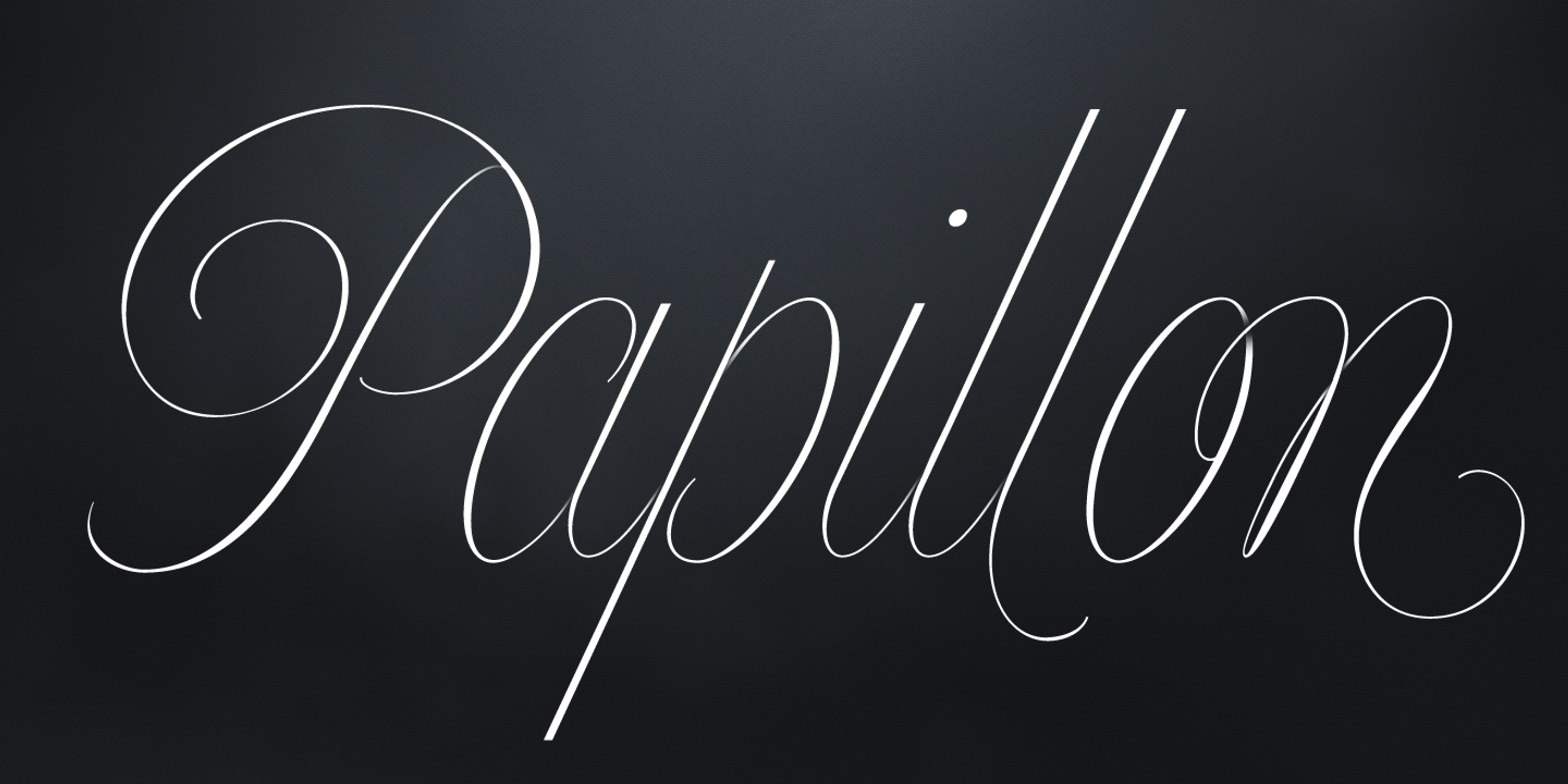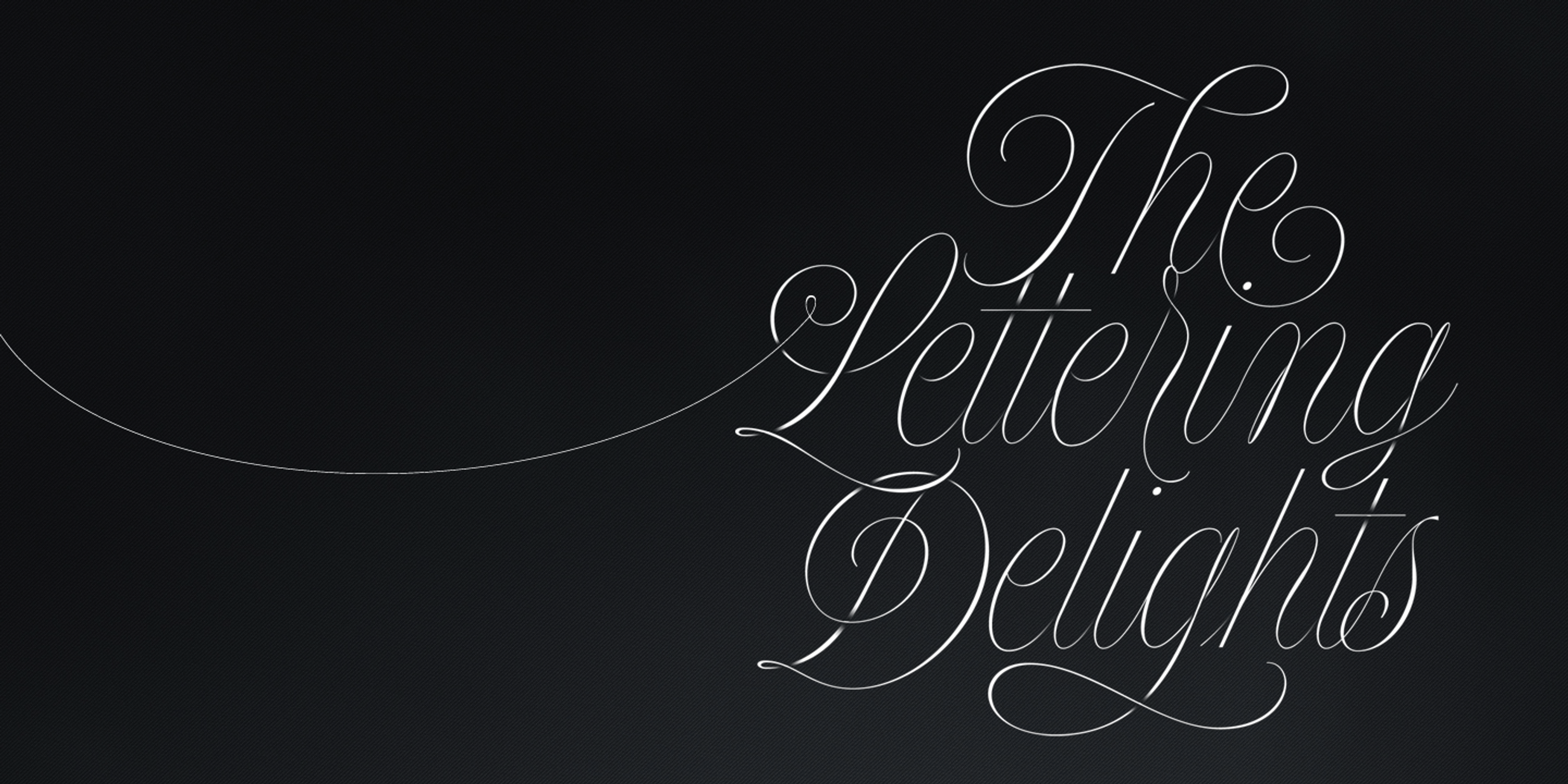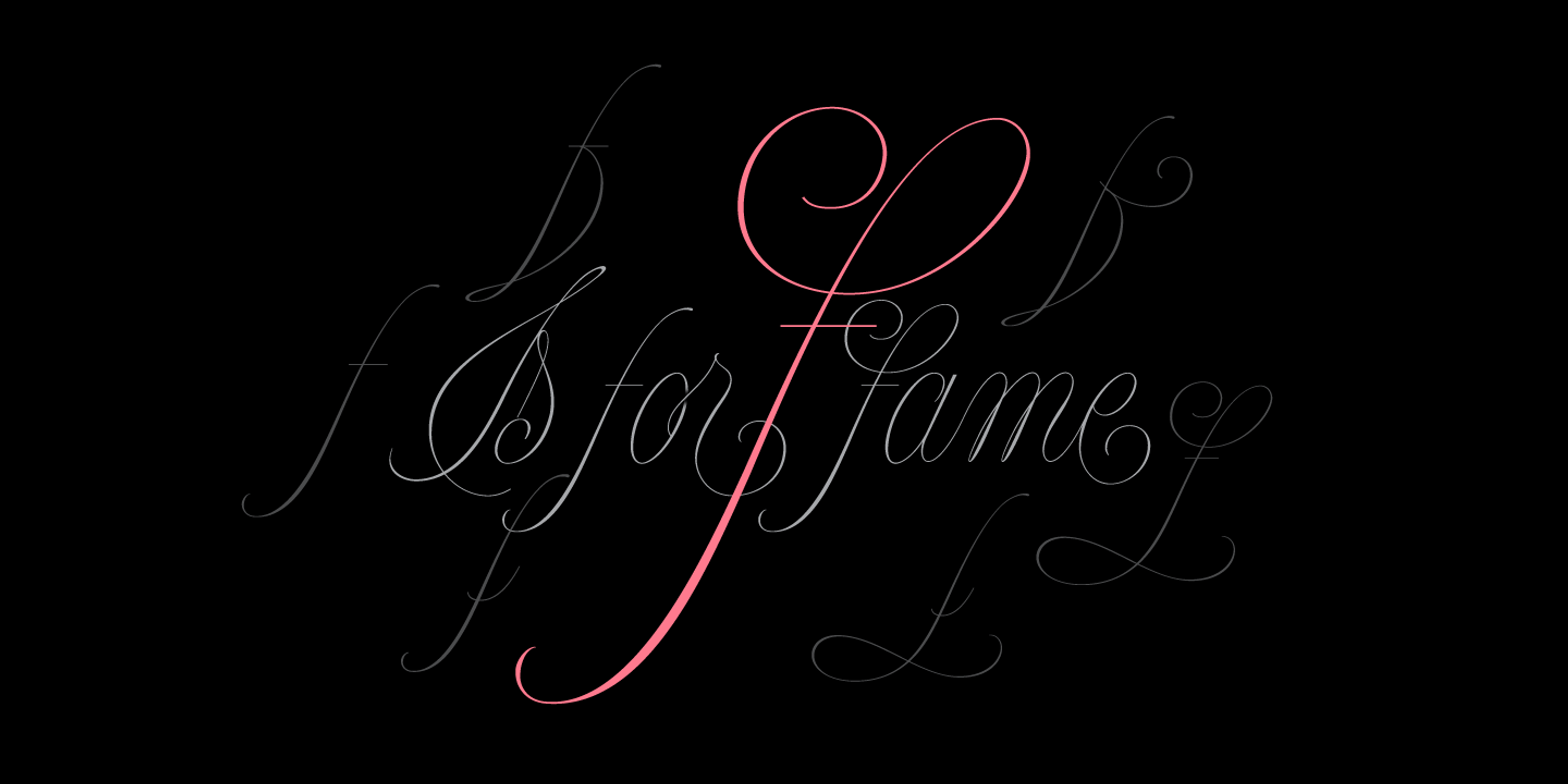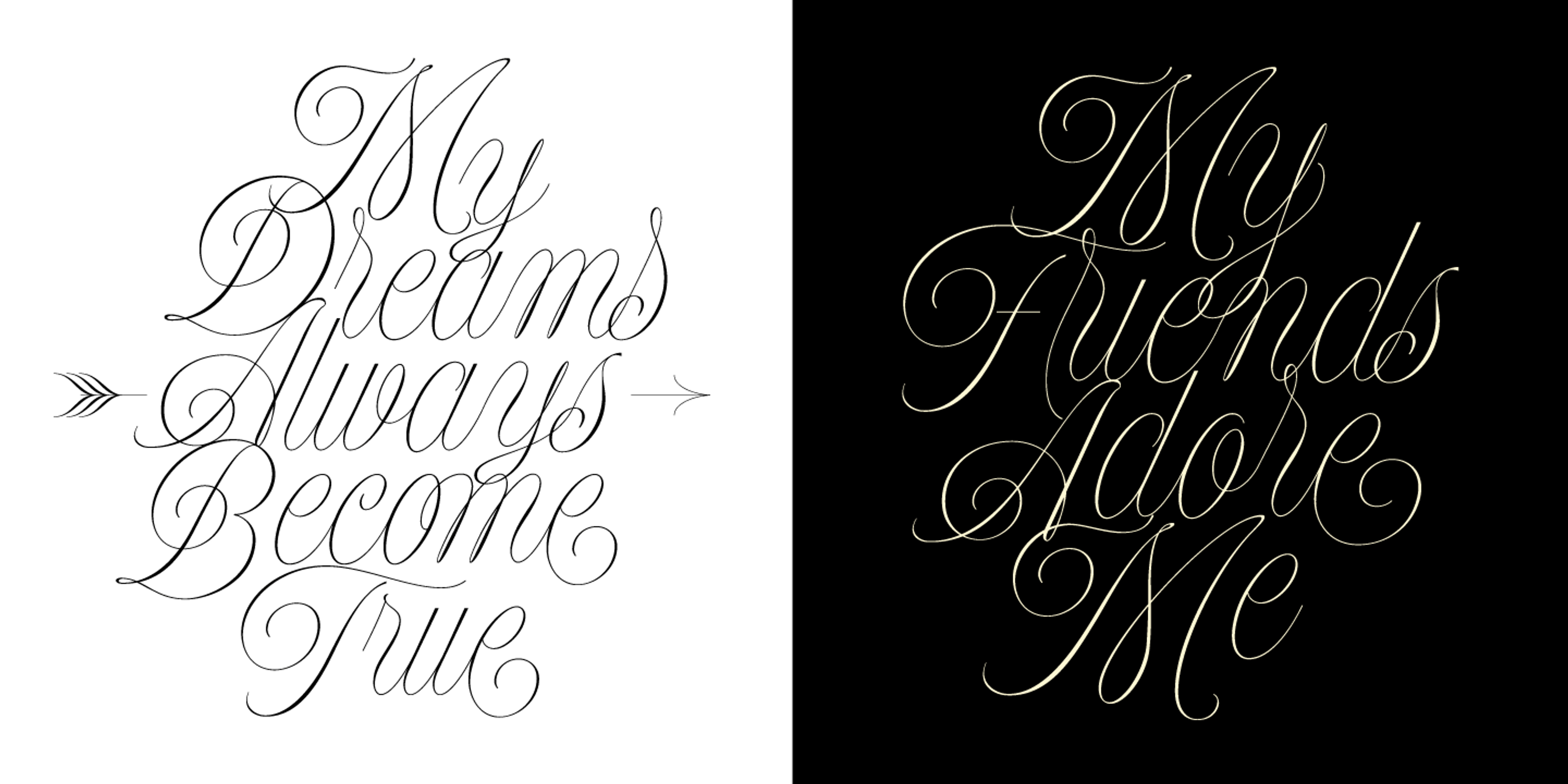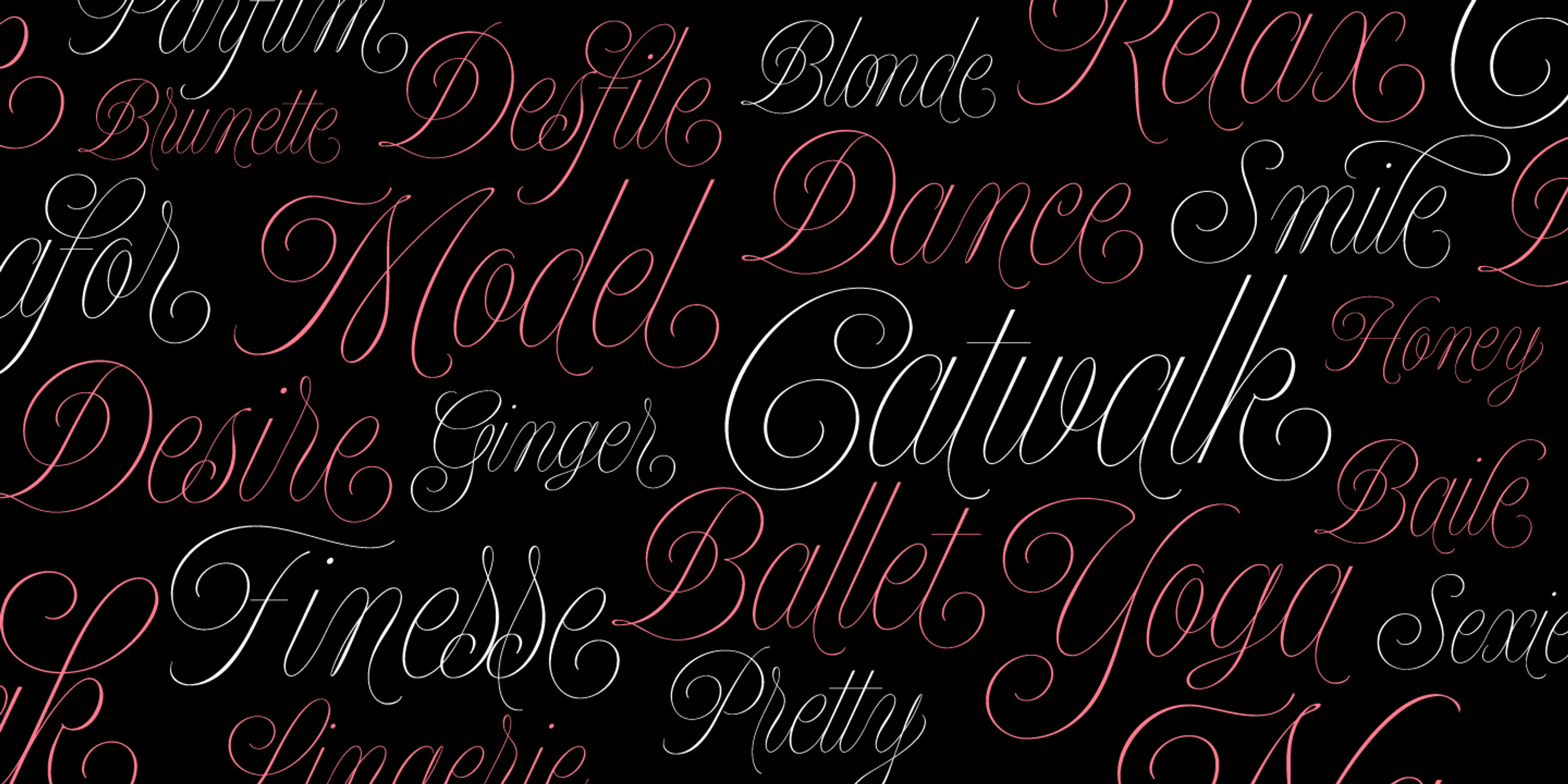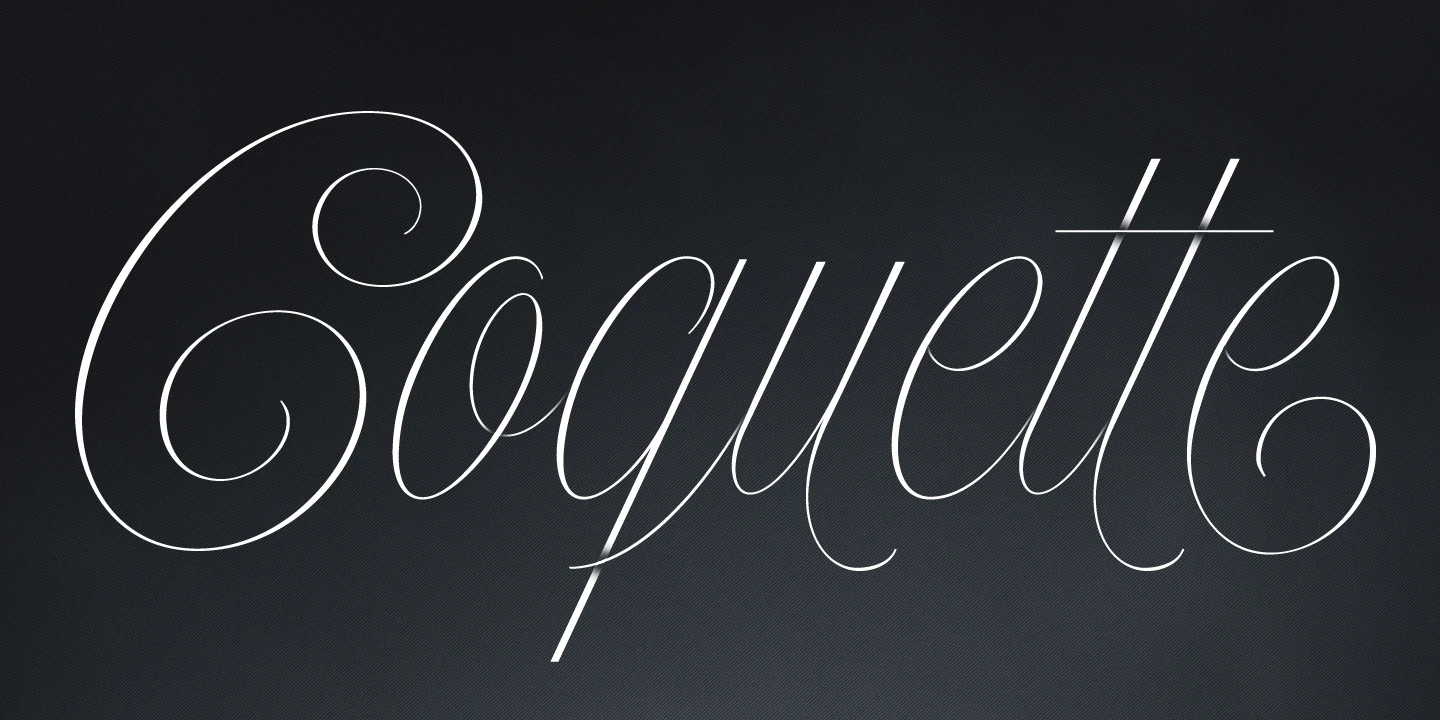
Model font by Sproviero Type — the word “Papillon” in an elegant, high-contrast connected script with a swash on the capital P and a flourish on the final n.
Model font by Sproviero Type — the word “Coquette” in a high-contrast connected script, with a long crossbar on the letter T
Model font by Sproviero Type — the word “Portfolio” in an elegant, high-contrast, connected script with swash capitals and ascenders
Model font by Sproviero Type — the words “The Lettering Delights” in a high-contrast connected script, with a long, thin swash extending from the initial “L” to the left
Model font by Sproviero Type — the words “f is for fame” in connected script, with a large pink capital F and other letters in gray, surrounded by other gray script letters and flourishes
Model font by Sproviero Type — the connected script words “My Dreams Always Become True” with a decorative arrow on the left, and “My Friends Adore Me” in the same script on a dark background
Model font by Sproviero Type — a repeating pattern of upright connected script words in white and pink, including “Model”, “Catwalk”, “Finesse”, “Ballet”, and “Yoga”
Model font by Sproviero Type — the word “Portfolio” in an upright, high-contrast, connected script with elaborate flourishes and swashes
Model Variable
Model Banner
Model Display
Model Headline
Model Subhead
About the font
Model Details
Model is a poised and polished script with runway-worthy elegance. Its subtle contrast, graceful curves, tall proportions, and restrained flourishes give it a refined, high-fashion presence. Designed to adapt beautifully across sizes and settings, it’s ideal for magazine spreads, book covers, party invitations, or event posters. Available in four optical sizes or a single variable font to deliver the right amount of drama — never too much, never too little.
OpenType Features
• Character Variants
Ligatures
Discretionary Ligatures
Ornaments
Stylistic Alternates
Swashes
Stylistic Set 1
Stylistic Set 2
Stylistic Set 3
Stylistic Set 4
Stylistic Set 5
Stylistic Set 6
Stylistic Set 8
Stylistic Set 9
Stylistic Set 10
Stylistic Set 11
Stylistic Set 12
Stylistic Set 13
Stylistic Set 14
Stylistic Set 15
Stylistic Set 16
Initial Forms
Final Forms